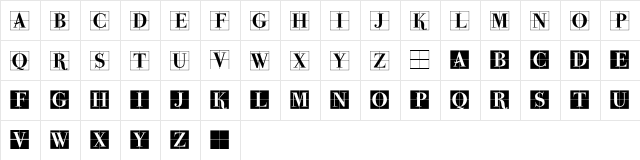
ParmaInitialenMK Regular Font Preview
ParmaInitialenMK Regular
Design Context for ParmaInitialenMK Typeface
ParmaInitialenMK offers clean, dependable letterforms without strong stylistic allegiance, making it a practical choice for designers who need flexibility.